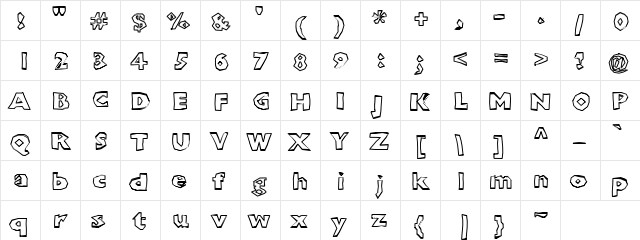
ChunkoBlockoOutlineXtraHeavy Regular
Design Context for ChunkoBlockoOutlineXtraHeavy Typeface
ChunkoBlockoOutlineXtraHeavy is built around its visual character rather than neutral utility — its distinctive forms are designed to make an impression at display sizes.
Font Pairing: Pair with a clean neutral sans-serif for body copy to let ChunkoBlockoOutlineXtraHeavy's character lead without overwhelming the composition.
Pro Tip: Treat ChunkoBlockoOutlineXtraHeavy as the centrepiece of your typographic hierarchy. One strong heading set in a decorative face can carry an entire layout.